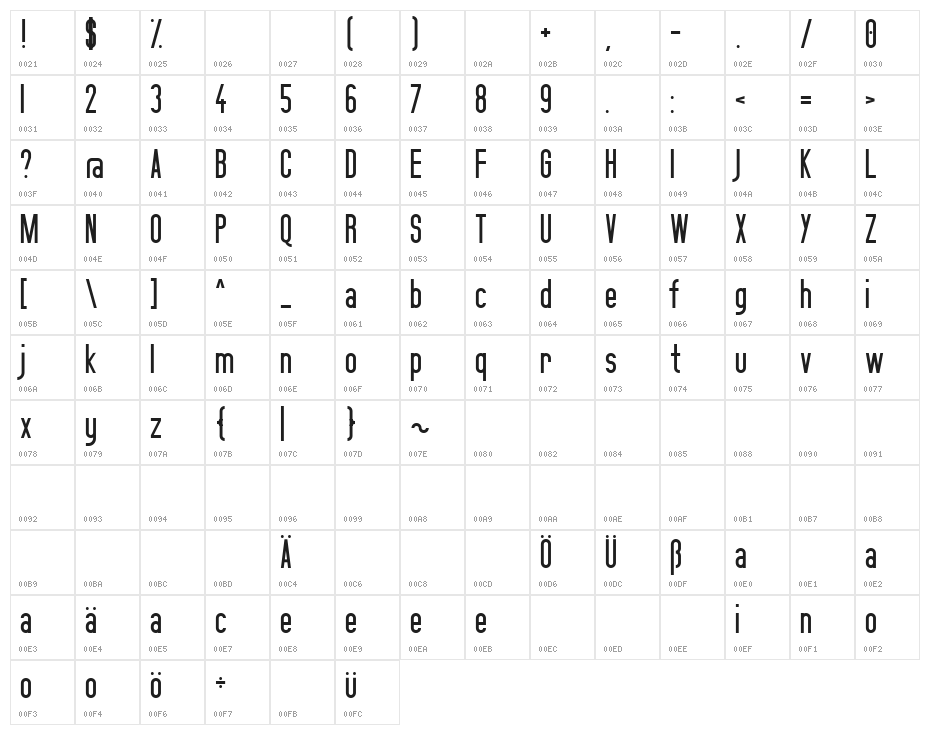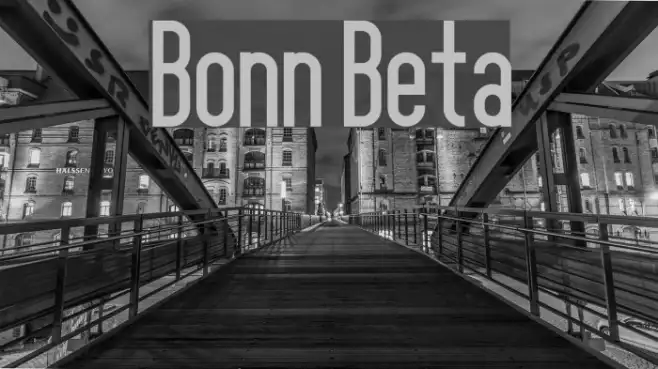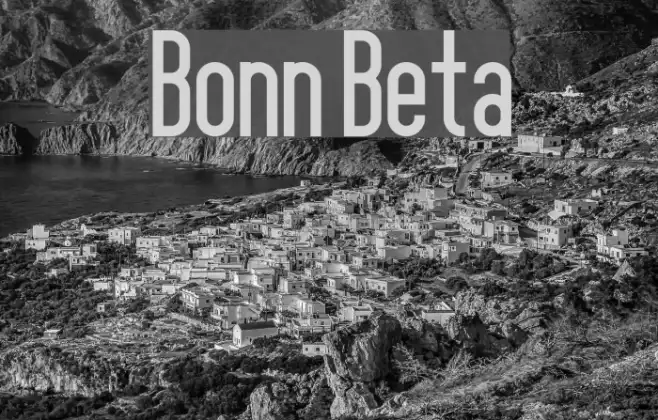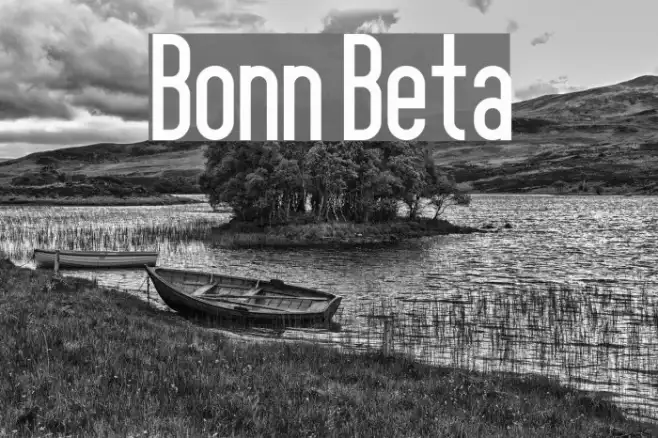
Bonn Beta Font
Bonn Beta Description
This font features a bold and modern design with a strong presence. The characters are tall and narrow, giving it a condensed appearance. The uppercase letters are particularly striking, with a uniform height and clean lines that contribute to a sleek and professional look. The lowercase letters maintain the same condensed style, ensuring consistency across different text sizes. The numerals are clear and easy to read, matching the overall aesthetic of the font. Special characters are well-integrated, maintaining the same bold and modern style. This font's design is ideal for making a strong visual impact.